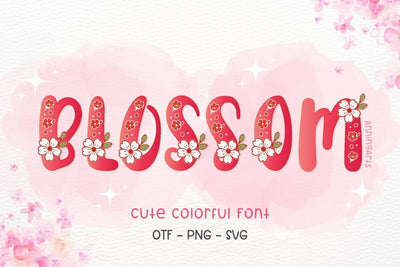
Blossom - Color Font
Blossom is a lovely colorful font, which is perfect for all your Spring-themed projects. You can use it to design products such as banners, content, mugs, cards, shirts, stationery, social media posts, and more!